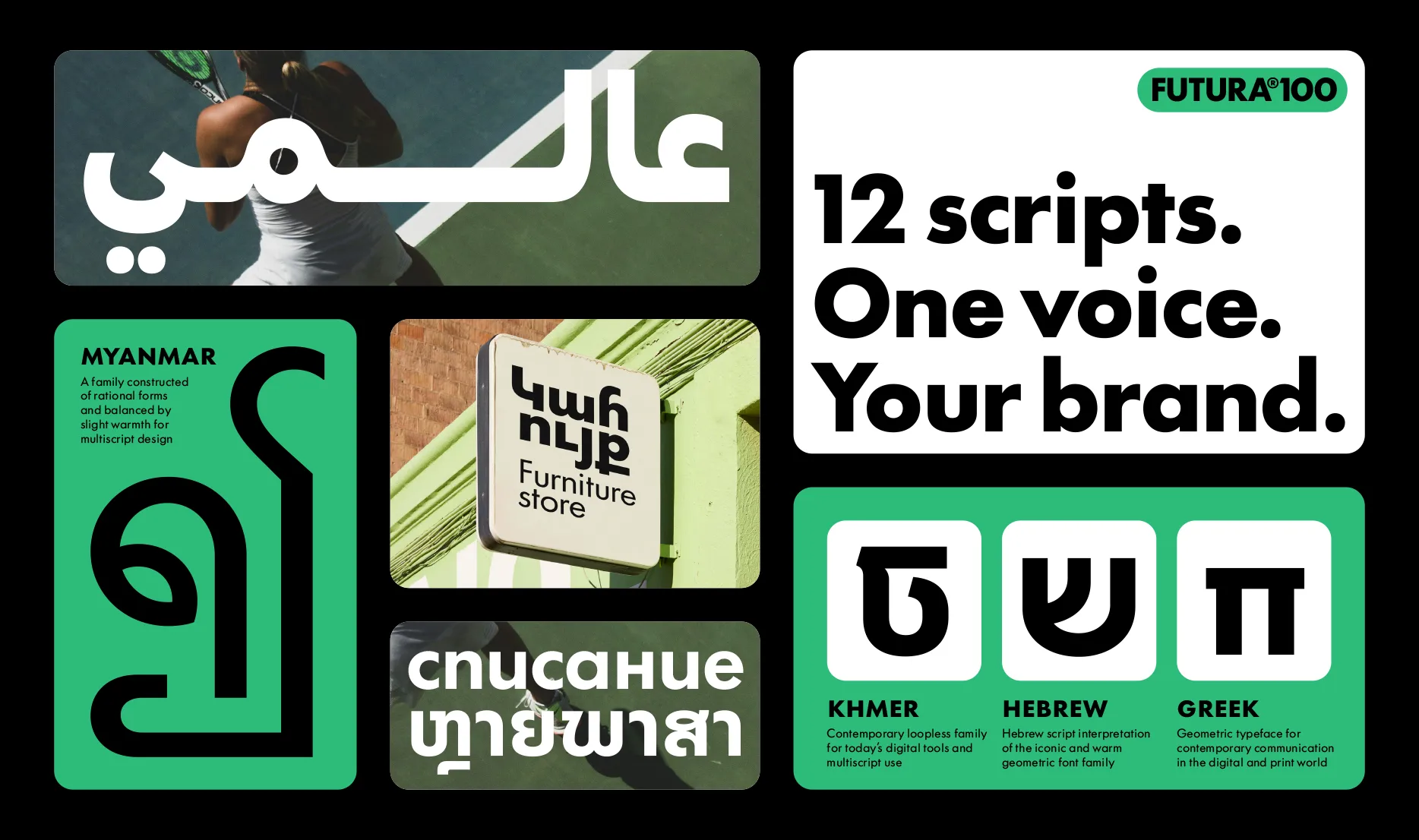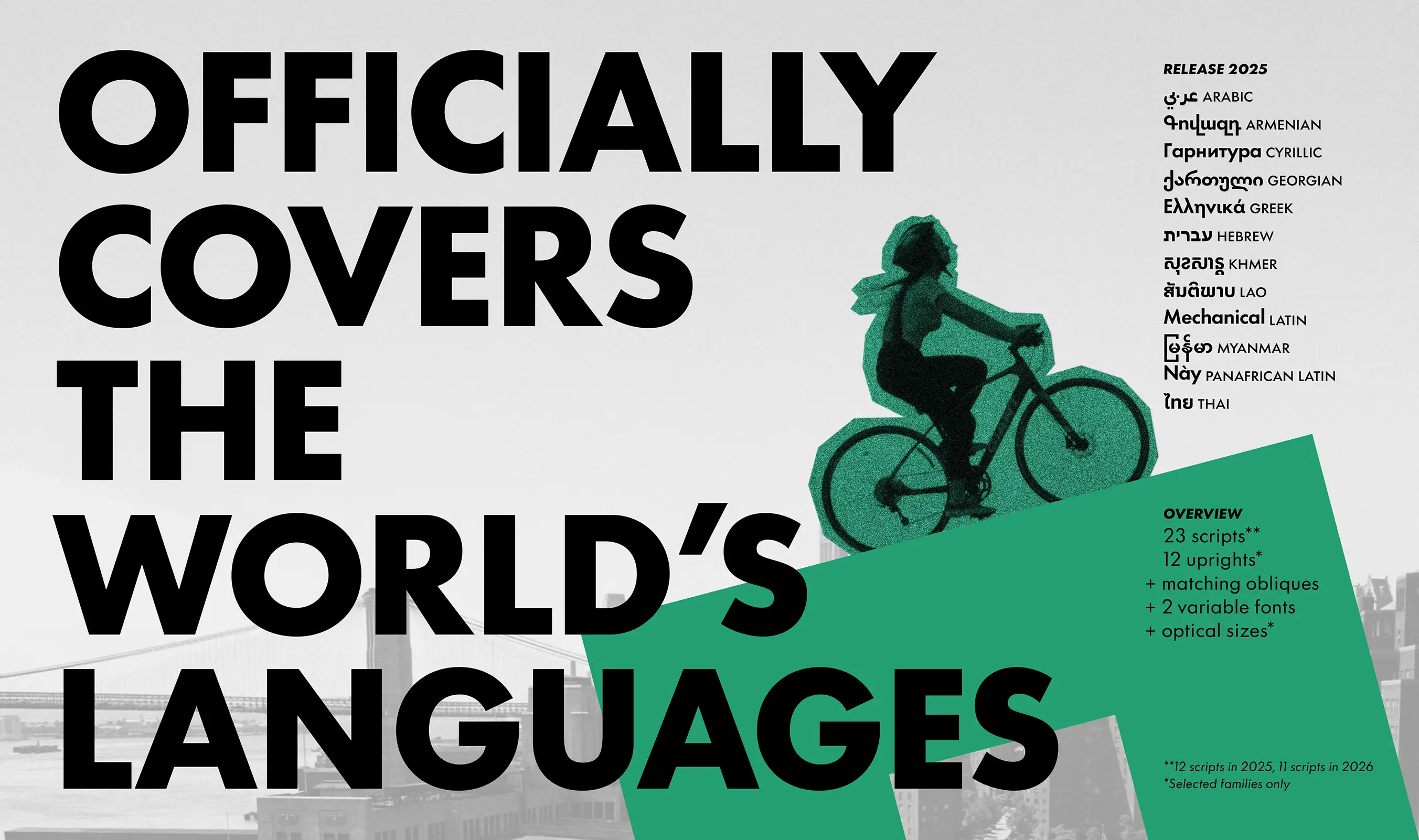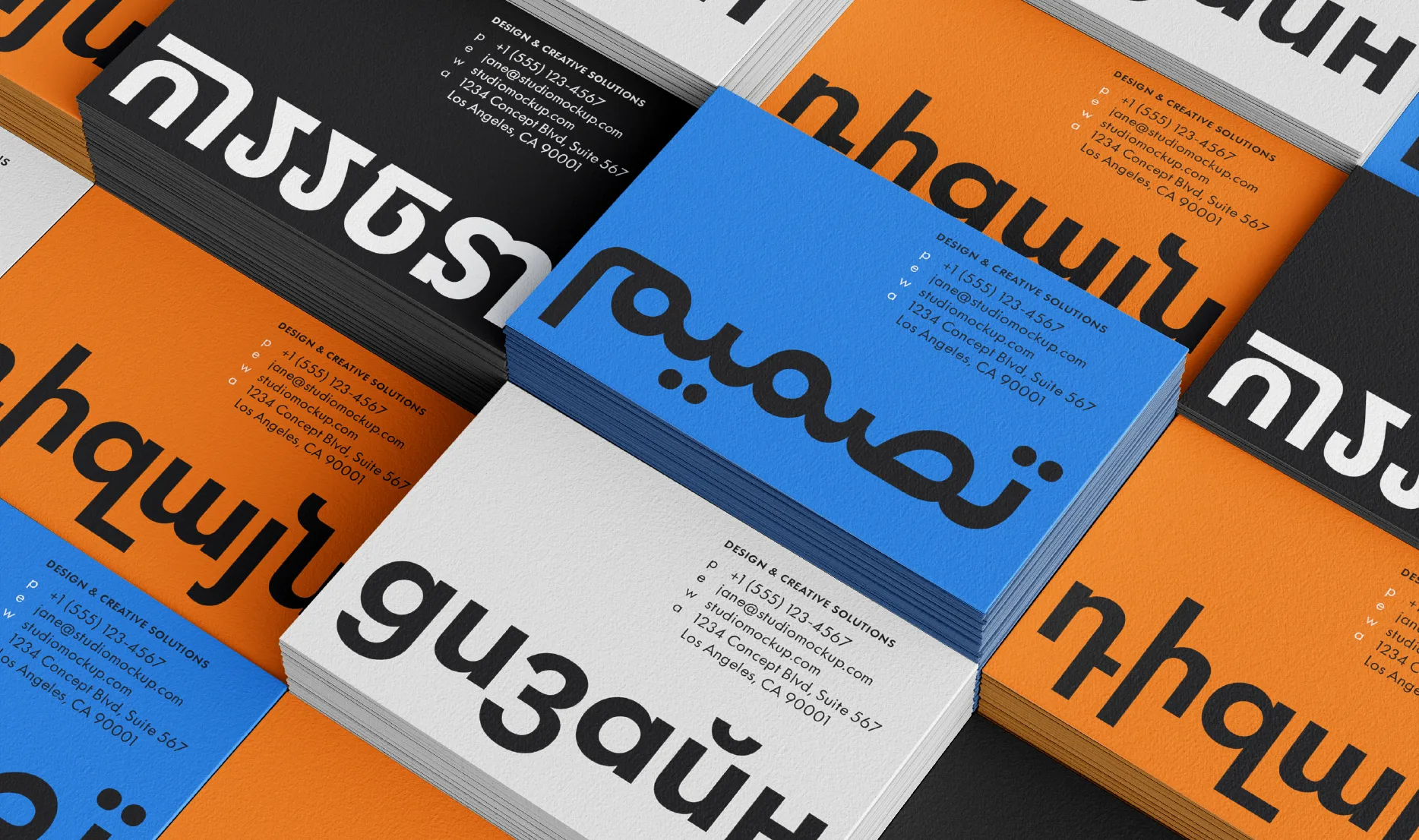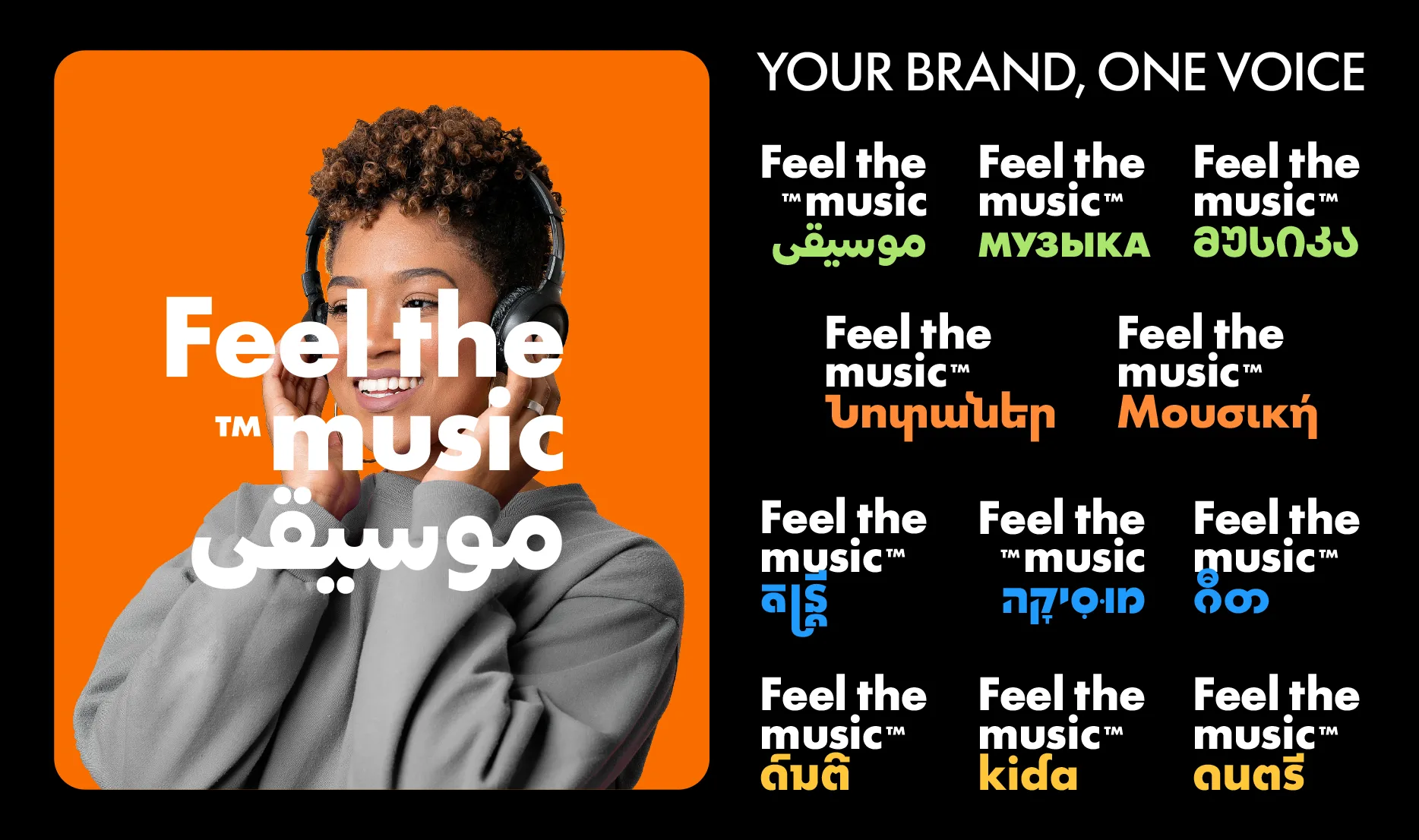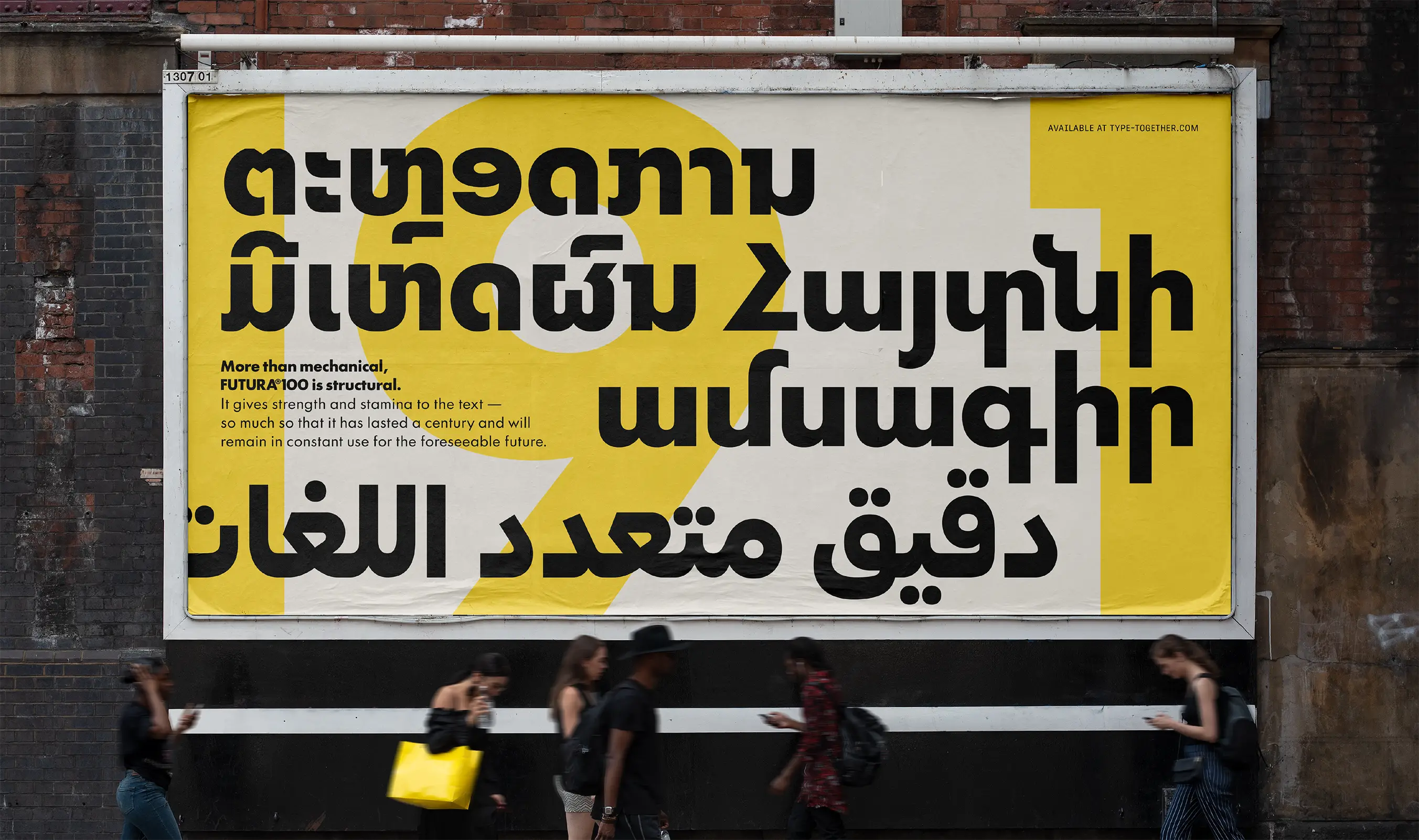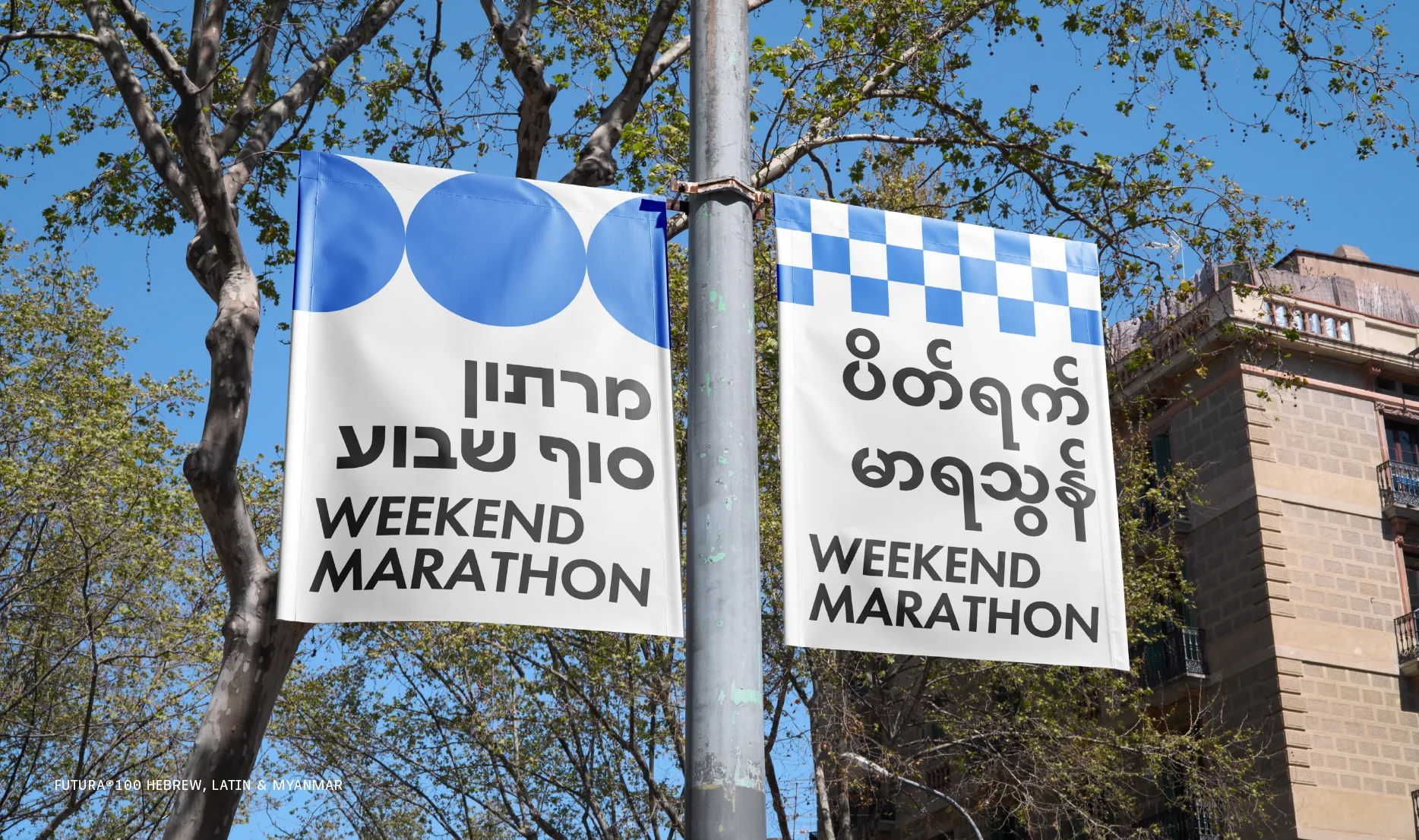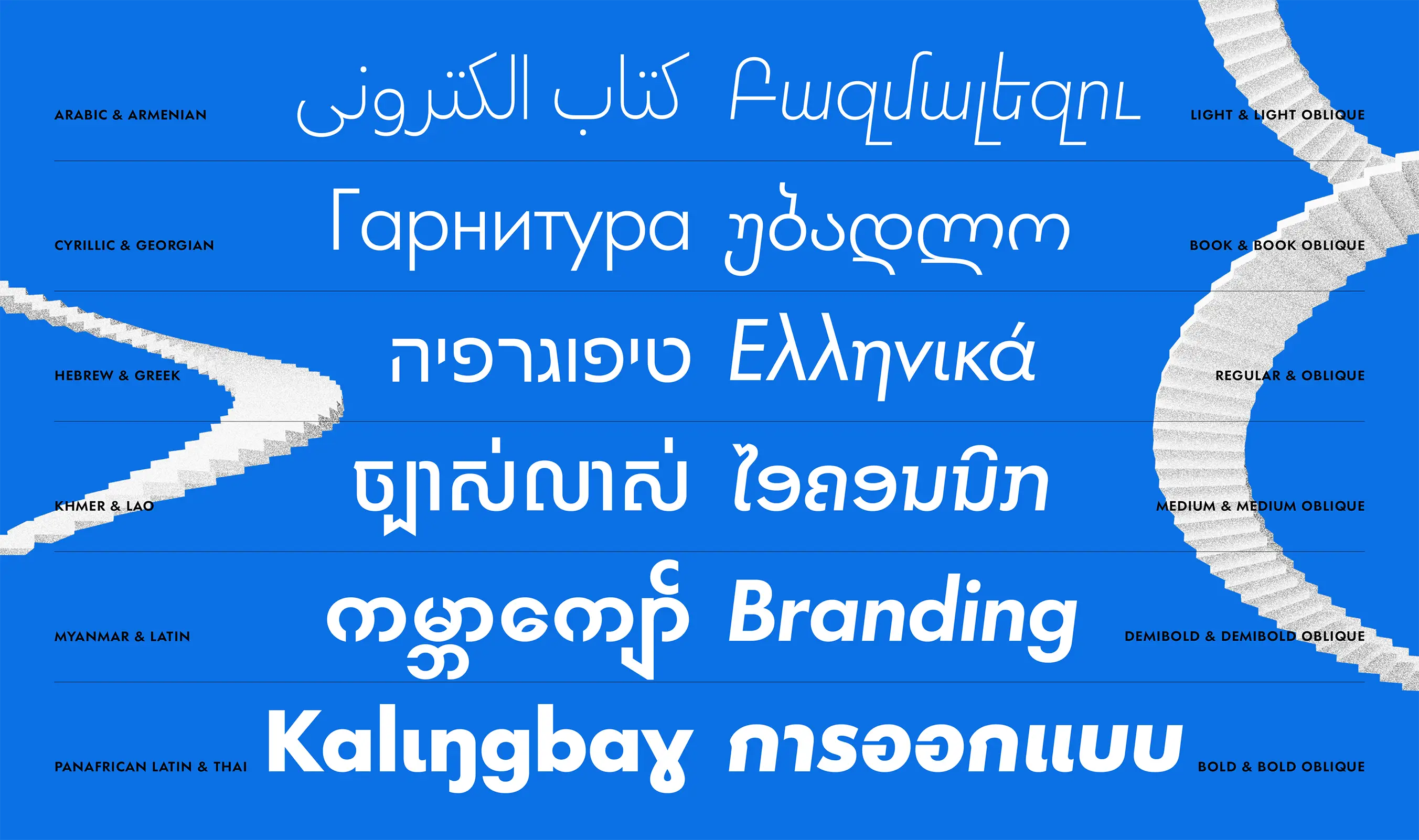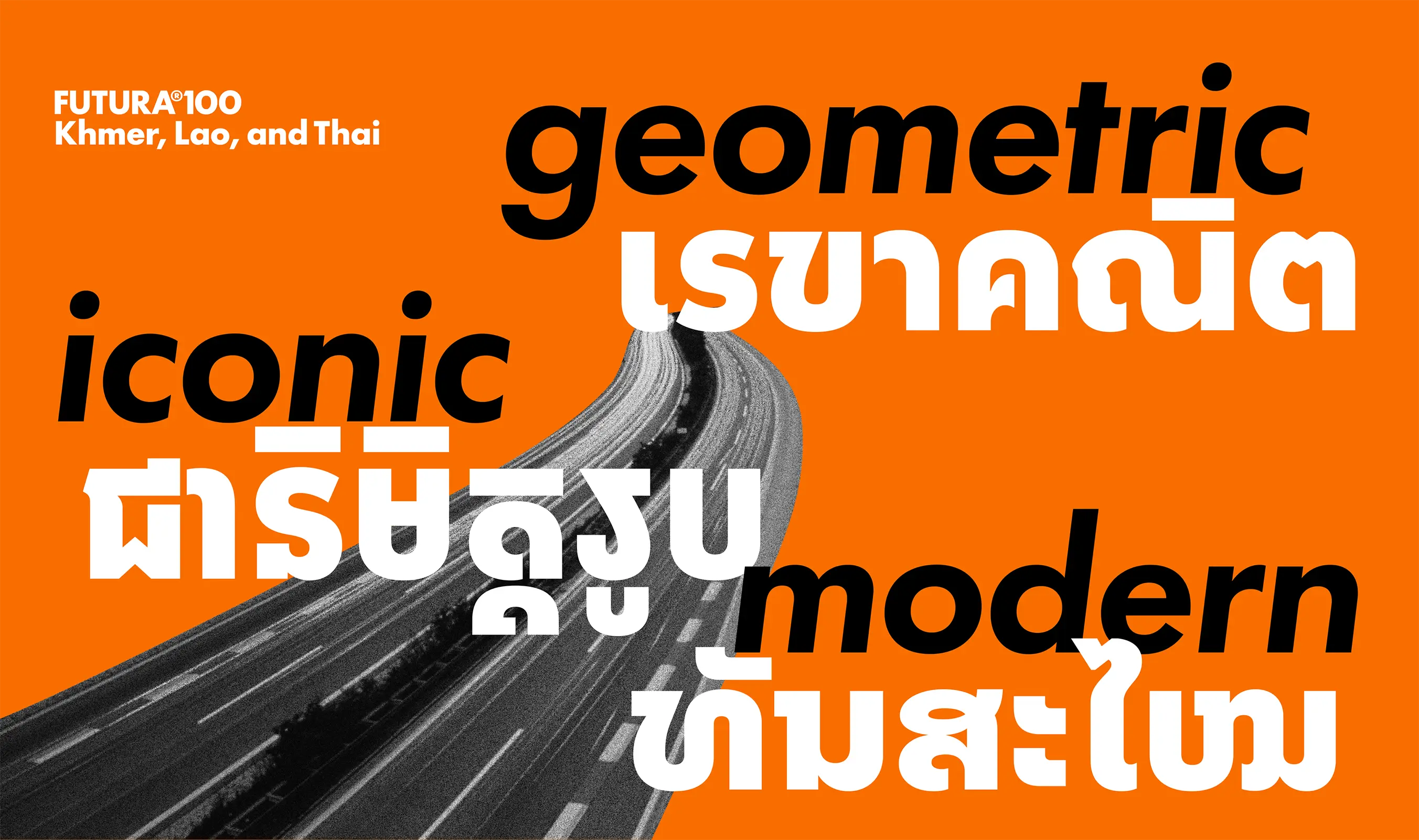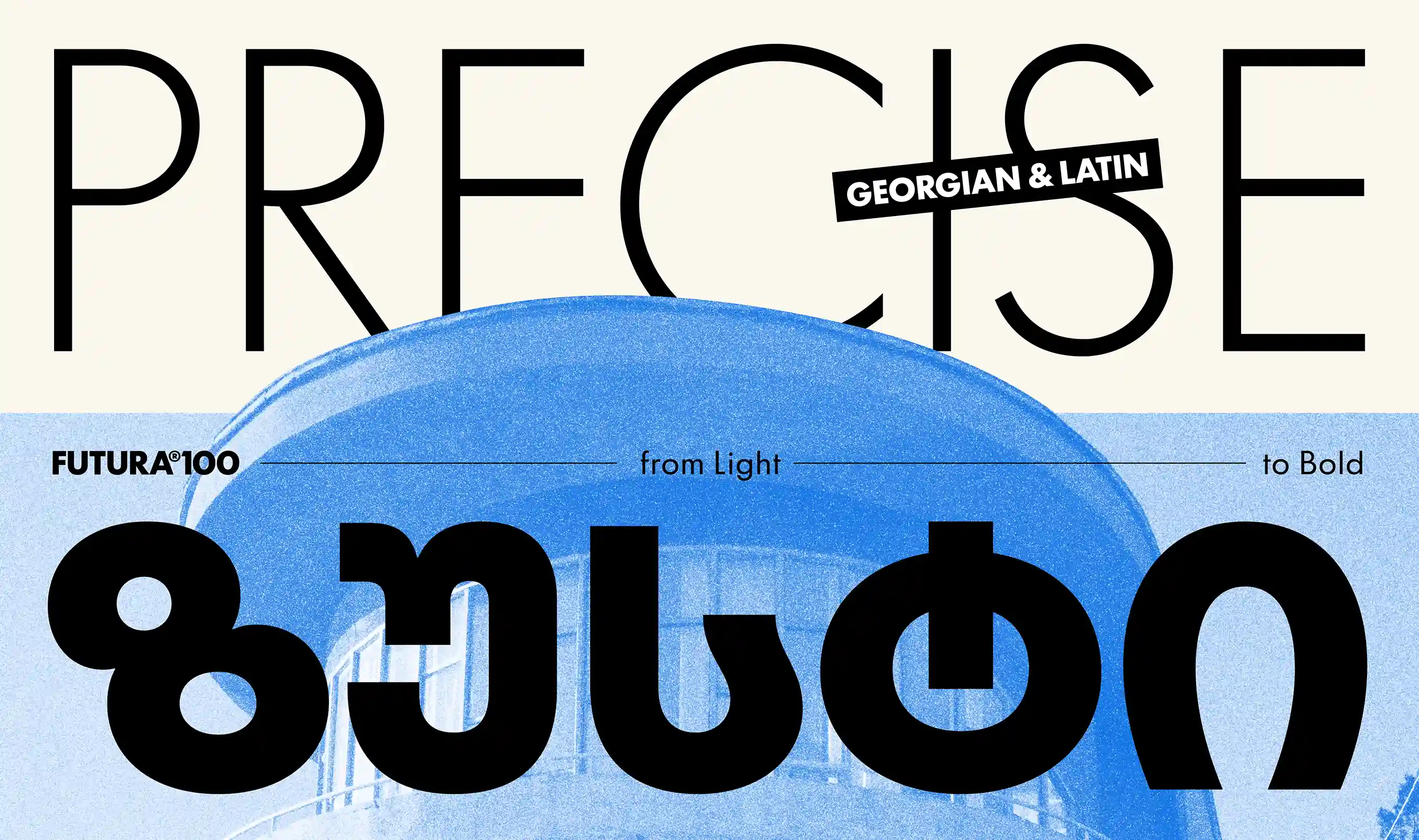
Futura®100: Multiscript mastery
In our increasingly connected world, multiscript typefaces are becoming more necessary to carry corporate messages further. Futura®100 enables that message globally.
The world continues to be increasingly connected and interdependent. The economy of one country affects the economies of others, especially for businesses or corporations with products, services, or reach beyond their own borders. Speaking directly to customers and clients in their native language increases the need for multiscript typography in branding and marketing, with positive results all around.
Since TypeTogether’s inception, we have specialised in multiscript typography. Our in-house and global network of native type designers are recognised for their insight and skill. The sheer amount of work required to release Futura®100 put all this to good use by making 12 scripts to the family (so far) — Arabic, Armenian, Cyrillic, Georgian, Greek, Hebrew, Khmer, Lao, Latin, Myanmar, PanAfrican Latin, and Thai — each with up to 24 static styles and tons of extras. Upon its completion in 2026, the full family of 23 scripts will provide language support for more than 90% of the world’s population.
Want to make your next multiscript project easier? Each of the Futura®100 scripts harmonises well with the others. They have a common warm rationality to their forms and were designed to perform similarly next to each other: text with text and display with display, regardless of script. So not only does Futura®100 cover more languages right out of the digital box, it also plays well with the rest of the family. Another bonus is that when licensing any script, it includes the Latin counterpart for free.
Futura®100 is a great and simple choice since there is no need to cycle through options that don’t work together, and no need to depend on free fonts or questionable expertise. All this is resolved by TypeTogether’s enormous character set, in-depth QA, and high release standards. Designers and agencies can wisely invest in their world, beginning with Futura®100 multiscript for its ease of use, convenience, and professionalism.
Plain global speech with Futura®100!